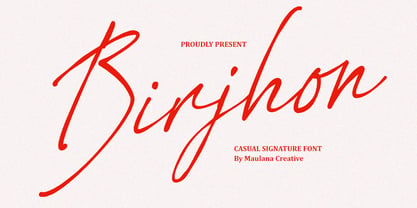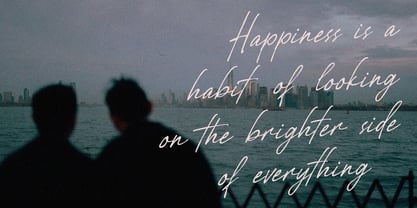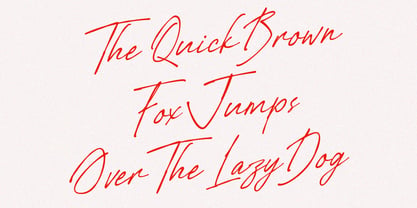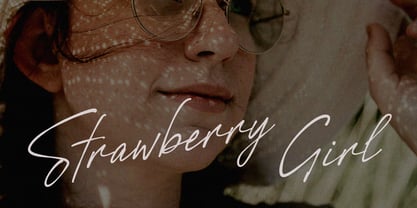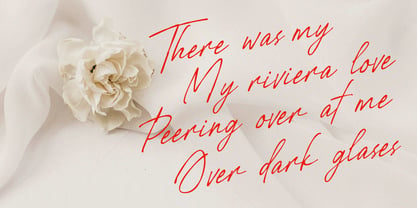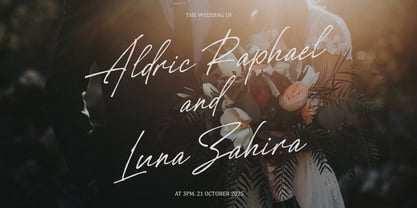
MC Birjhon
by Maulana Creative
The MC Birjhon Font Family was designed by Gilang Maulana and published by Maulana Creative. MC Birjhon contains 1 styles. More about this family
Introducing Birjhon, a captivating Casual Signature Brush Font that blends organic, handwritten spontaneity with polished, chic style. Birjhon is the perfect typeface for designers looking to inject a genuine, touch into their projects. Birjhon features flowing brush strokes, uneven baselines, and a natural slant, mimicking the look of authentic, quick signature writing. Its versatility shines across a multitude of applications: - Branding & Identity: Create memorable, upscale logos and brand marks that convey authenticity and premium quality. - Weddings & Events: Ideal for elegant invitations, menus, and personalized stationery that capture a romantic, handcrafted feel. - Social Media & Photography: Perfect for stunning quotes, watermarks, and editorial overlays that stand out in a feed. Key Features: - Complete Character Set: Includes full Uppercase, Lowercase, Numerals, and Punctuation. - Authentic Ligatures: Special ligatures are included to ensure your text flows naturally and beautifully, enhancing the genuine handwritten feel. - Multi-Lingual Support: Ready to be used for a global audience.
Designers: Gilang Maulana
Foundry: Maulana Creative